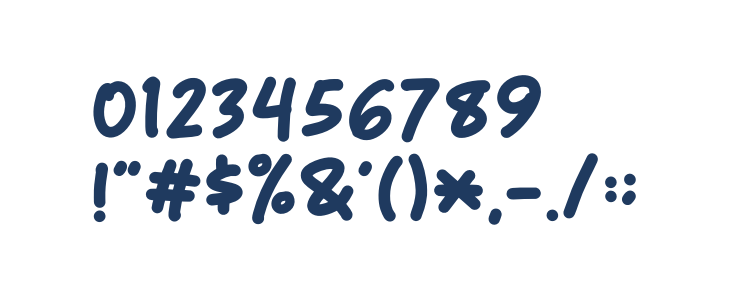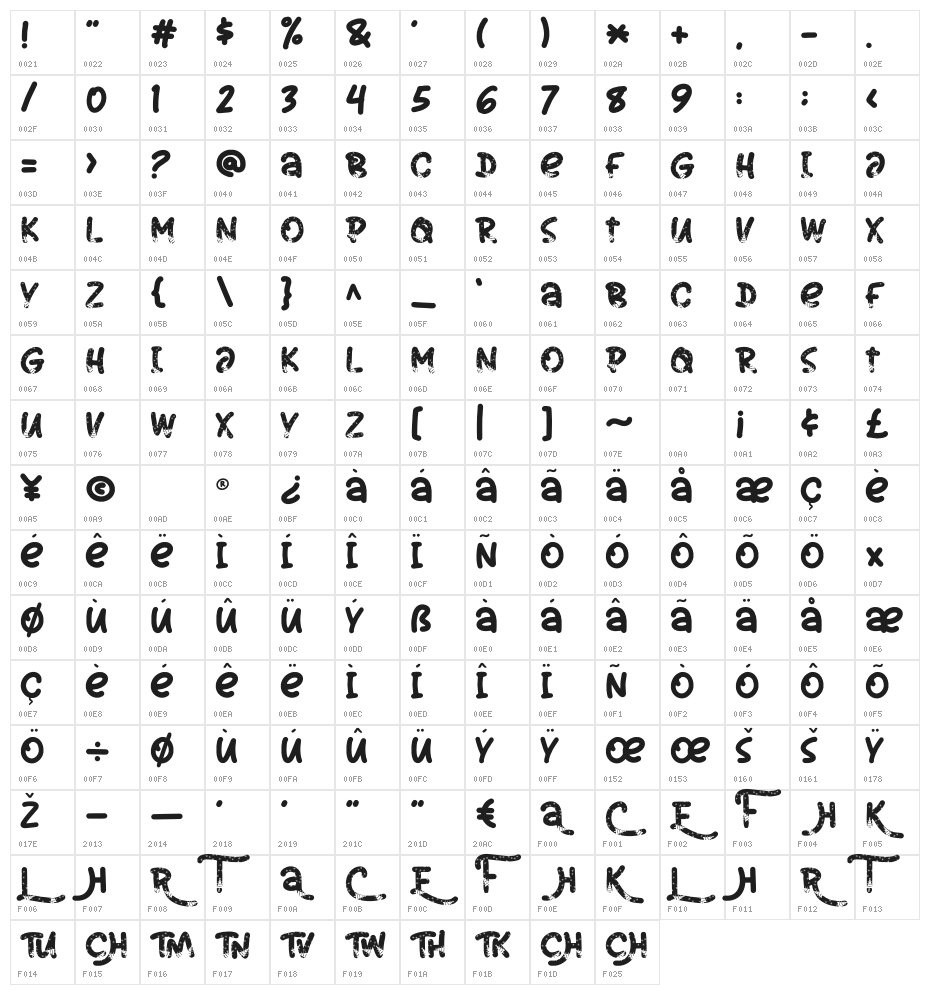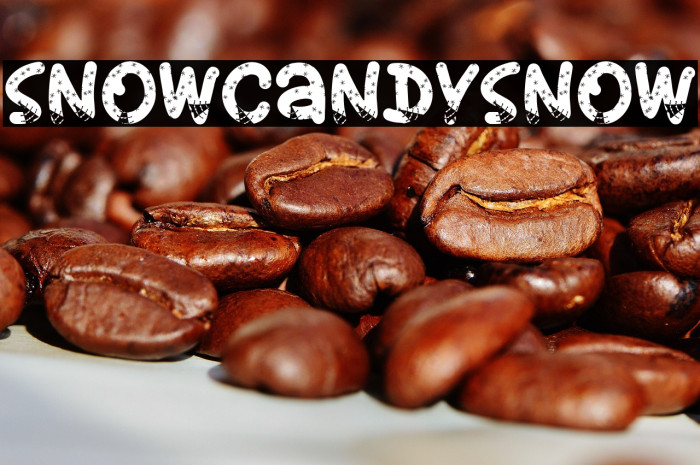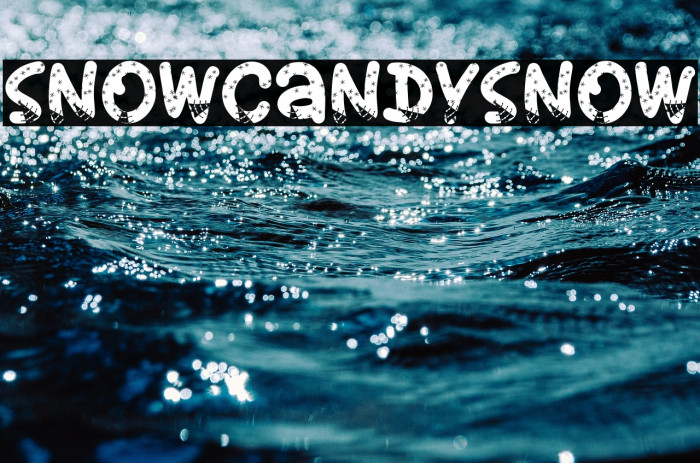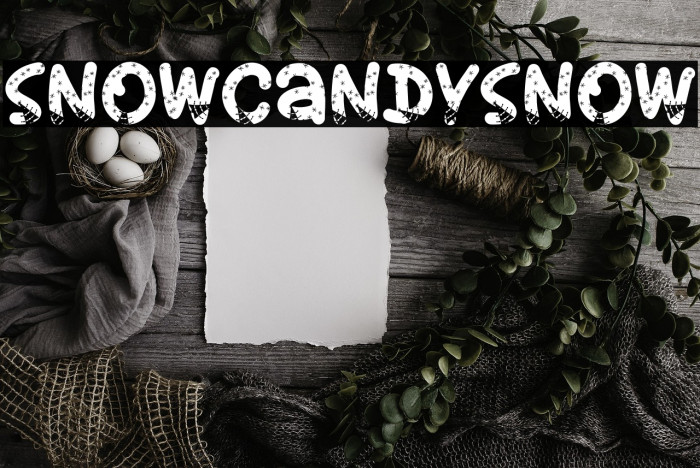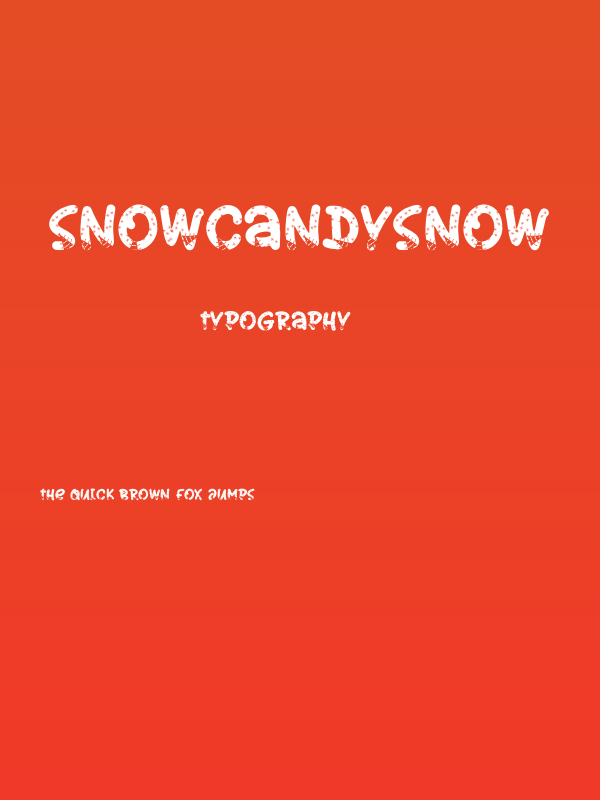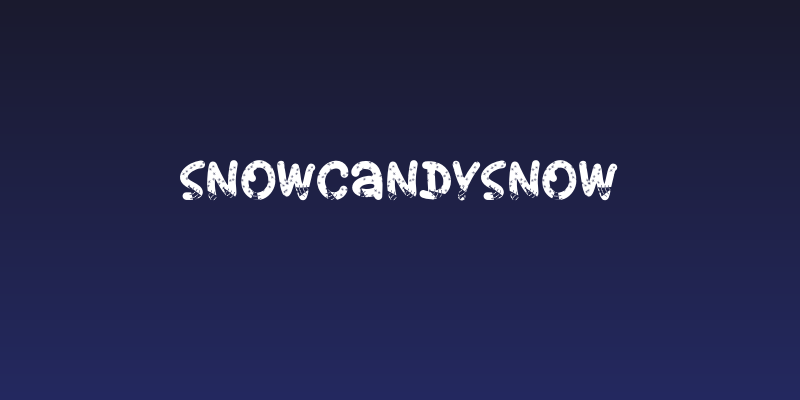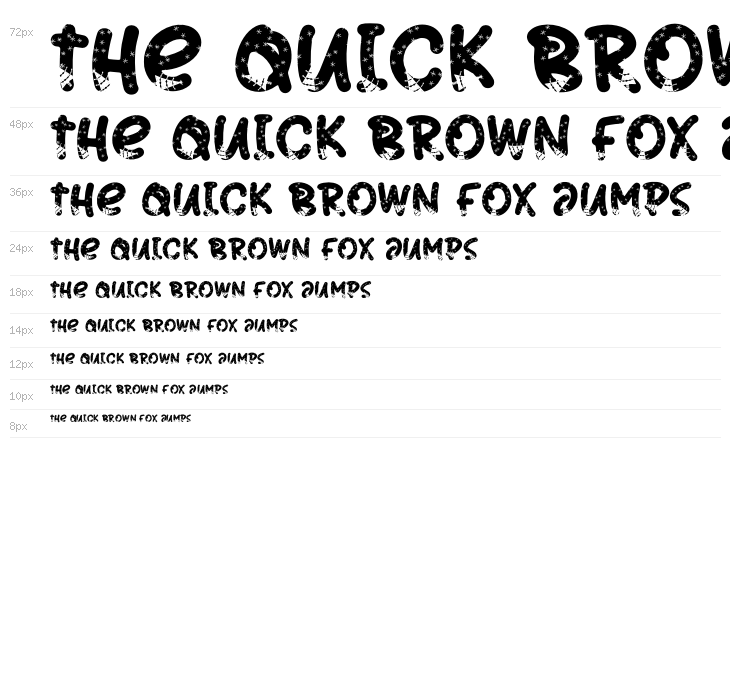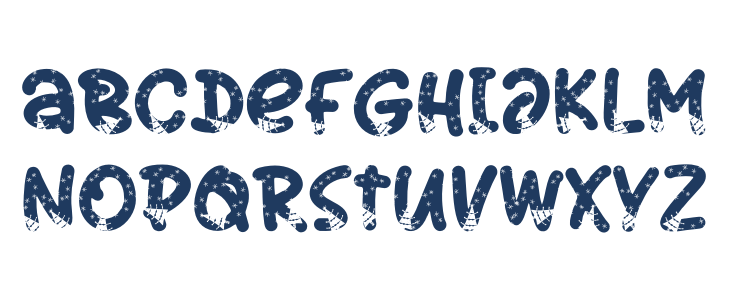
SnowCandySnow Font
SnowCandySnow Description
This font features a playful and bold design with a distressed texture that gives it a unique, weathered appearance. The characters are rounded and thick, with a consistent weight throughout. The distressed effect adds a sense of movement and energy, making it ideal for creative and informal projects. The uppercase and lowercase letters maintain a uniform style, while the numerals and special characters complement the overall aesthetic. This font is perfect for projects that require a fun and dynamic look, such as posters, children's books, and event invitations.
| Overall Style | Playful, Energetic |
| Proposed Projects | Ideal for posters, children's books, event invitations, and creative designs. |